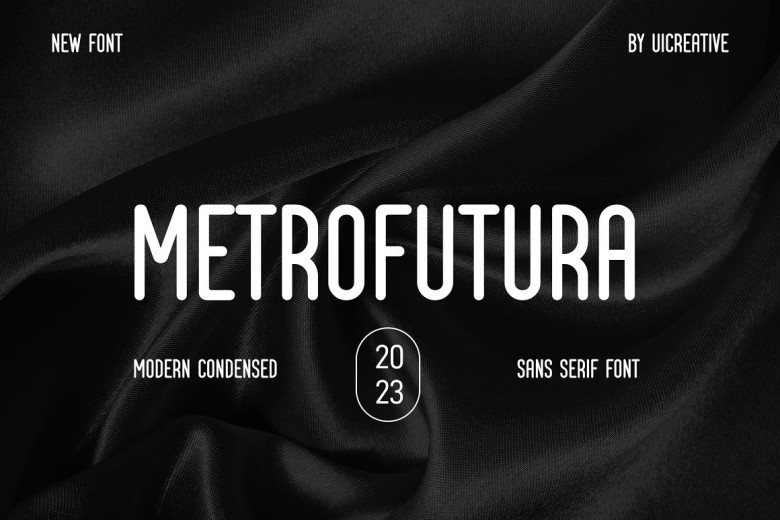
Metrofutura Font
Metrofutura is a modern condensed sans serif typeface with an urban touch that looks beautiful but isn’t boring. For a wide range of projects, this font is ideal: not only your personal prints and signs in your home but also websites headers and even fashion-related branding or editorial design–a display which illustrates both masculine as well as feminine.
Metrofutura Sans Serif Font